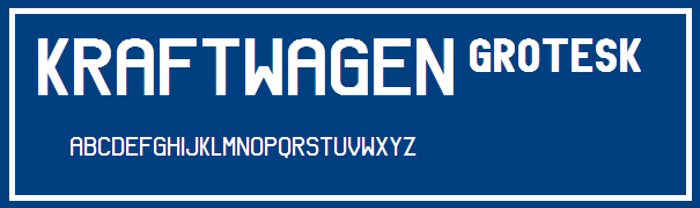
Kraftwagen-Grotesk NBP Font
Kraftwagen-Grotesk SmallCaps NBP Style
A basic sans-serif inspired by DIN.
-Added a regular version with lowercases
@WolfLambert I tried real lowercases but (of course) the s and z didn't work. Next time I'm going to try raising the cap height so I have more freedom with the lowercases.
@WolfLambert True. Except technically KWG Regular is more nova (new) than KWG SmallCaps. I had to raise the cap height in order to make Regular, which is why SmallCaps appears bolder. The only reason why Kraftwagen-Grotesk SmallCaps is called that is because I was too lazy to think of a better name 😛 It may not be the exact small-caps version of Regular, but it does have small caps.